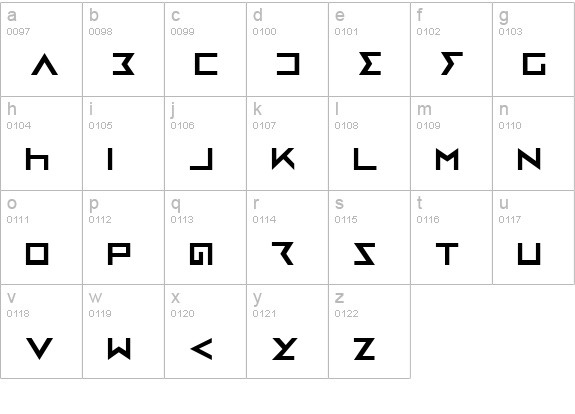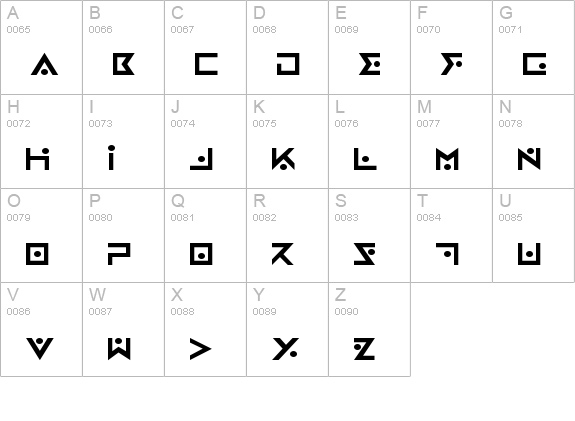
Iron Cobra font is a bold and striking typeface that exudes power and strength. With its sharp edges and heavy strokes, this font is perfect for making a bold statement in your designs. The Iron Cobra font is versatile and can be used for various projects, from posters to logos to merchandise. The best part about Iron Cobra font is that it is completely free to download at FontsMarket.com. You can easily add this impressive font to your collection without any cost. Don't miss out on the opportunity to enhance your designs with the powerful presence of Iron Cobra font. Download it today and unleash its bold energy in your projects.